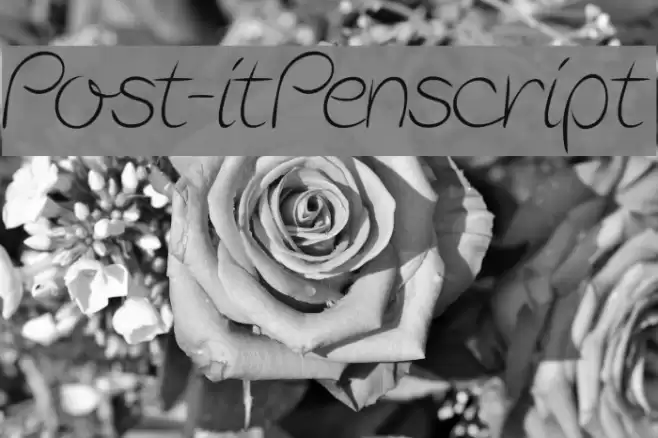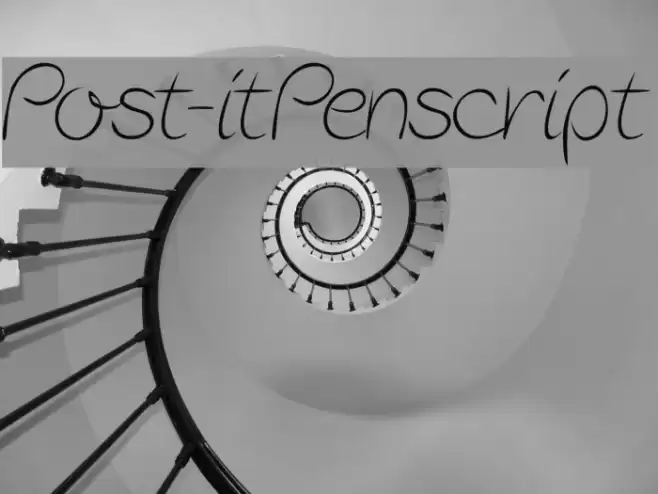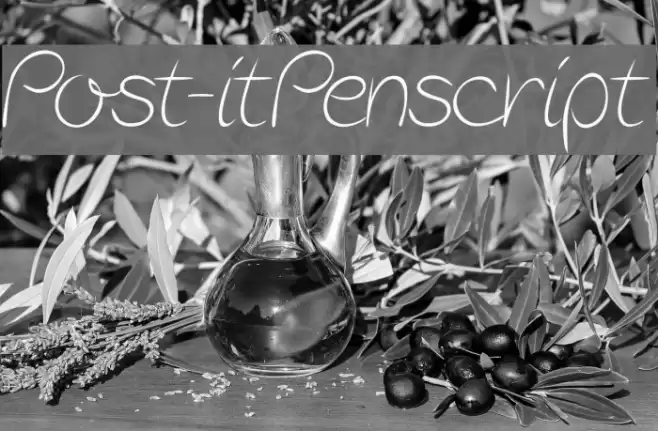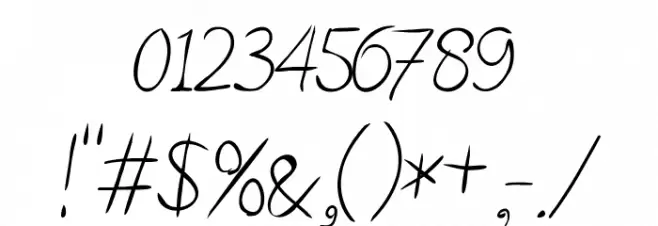
Post-itPenscript Font
Post-itPenscript Description
This font features a fluid and elegant script style, characterized by its smooth, flowing lines and a handwritten appearance. The letters are slightly slanted, giving a sense of motion and grace. Uppercase letters are distinct with a consistent height, while lowercase letters maintain a harmonious balance with subtle variations in size. The numerals are clear and legible, complementing the overall aesthetic. Special characters are thoughtfully designed to match the script's fluidity, making it versatile for various uses. The font's organic feel is ideal for projects that require a personal touch.
A fluid, elegant script font with a handwritten appearance from Uncategorized fonts.
- Proposed Projects: Ideal for wedding invitations, greeting cards, personal branding, and artistic projects that require a personal, elegant touch.
- Overall Style: Elegant, Handwritten
- Use Case: Logos, Invitations, Personal Branding